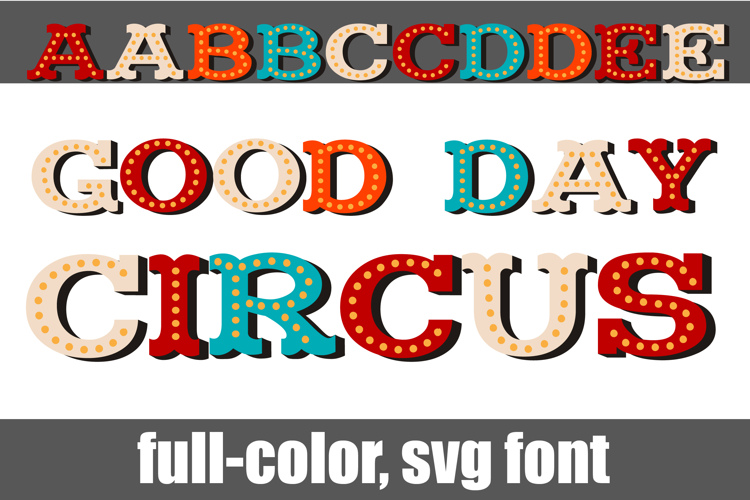
Good Day Circus Color Font
This full-color, circus-style font is in a summery color palette. There is an alt case of additional colors of each letter that you can access through your system's character map.